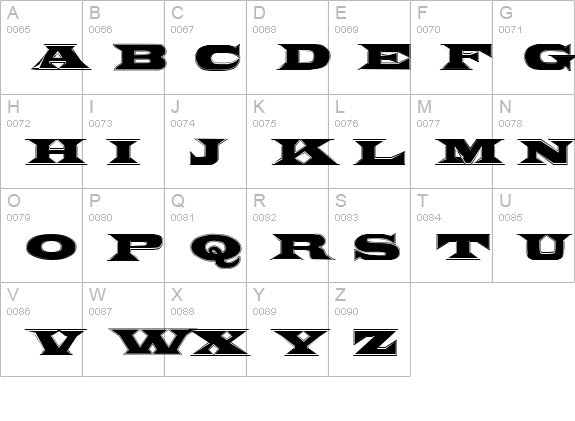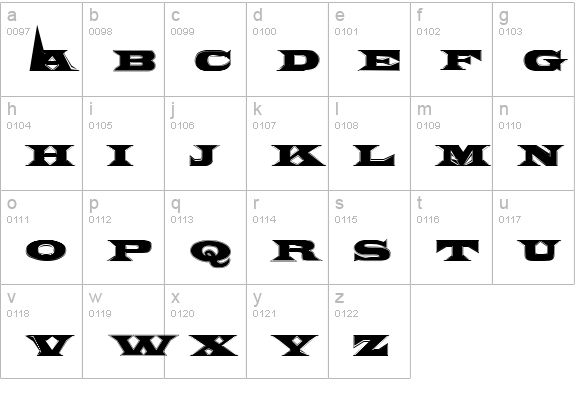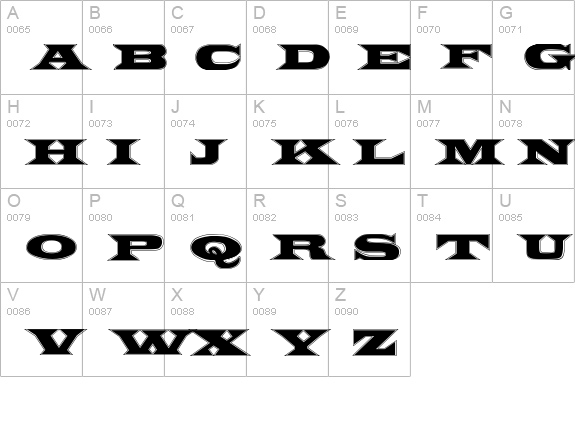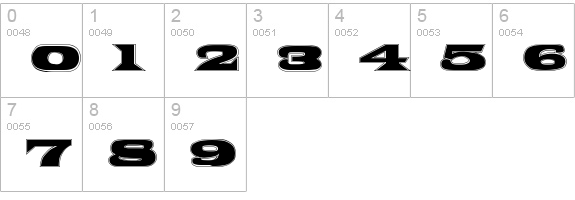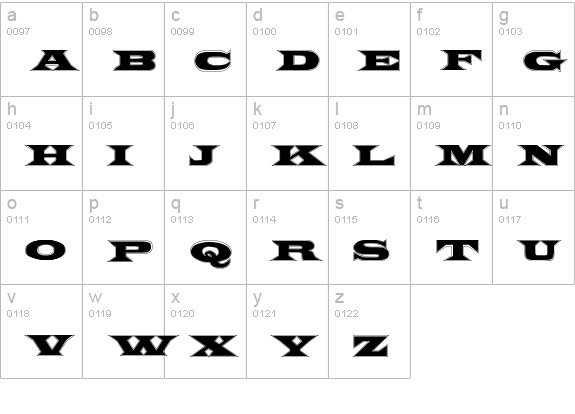
ZyklopInline Font Details
ZyklopInline font is a striking and unique typeface that exudes modernity and sophistication. Its sleek lines and geometric shapes give it a futuristic and edgy feel, making it perfect for eye-catching headlines and bold designs. The inline style adds a dynamic touch, creating a sense of movement and energy. What sets ZyklopInline font apart is that it is not only visually captivating but also free to download. You can easily access this impressive font at FontsMarket.com, where you can unleash your creativity and bring your projects to life with this versatile typeface. Whether you're designing posters, logos, or any other visual content, ZyklopInline font will surely make a statement and leave a lasting impression on your audience. Download it now and elevate your designs with this modern and stylish font.